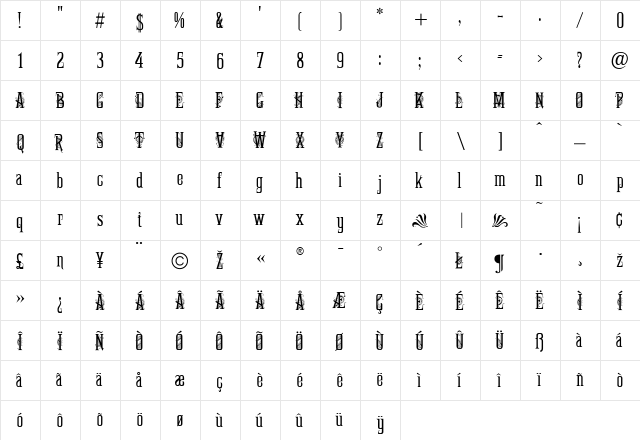
FancyCeltic Regular
Design Context for FancyCeltic Typeface
FancyCeltic is a composed and adaptable typeface that performs quietly and consistently across a wide range of design contexts.